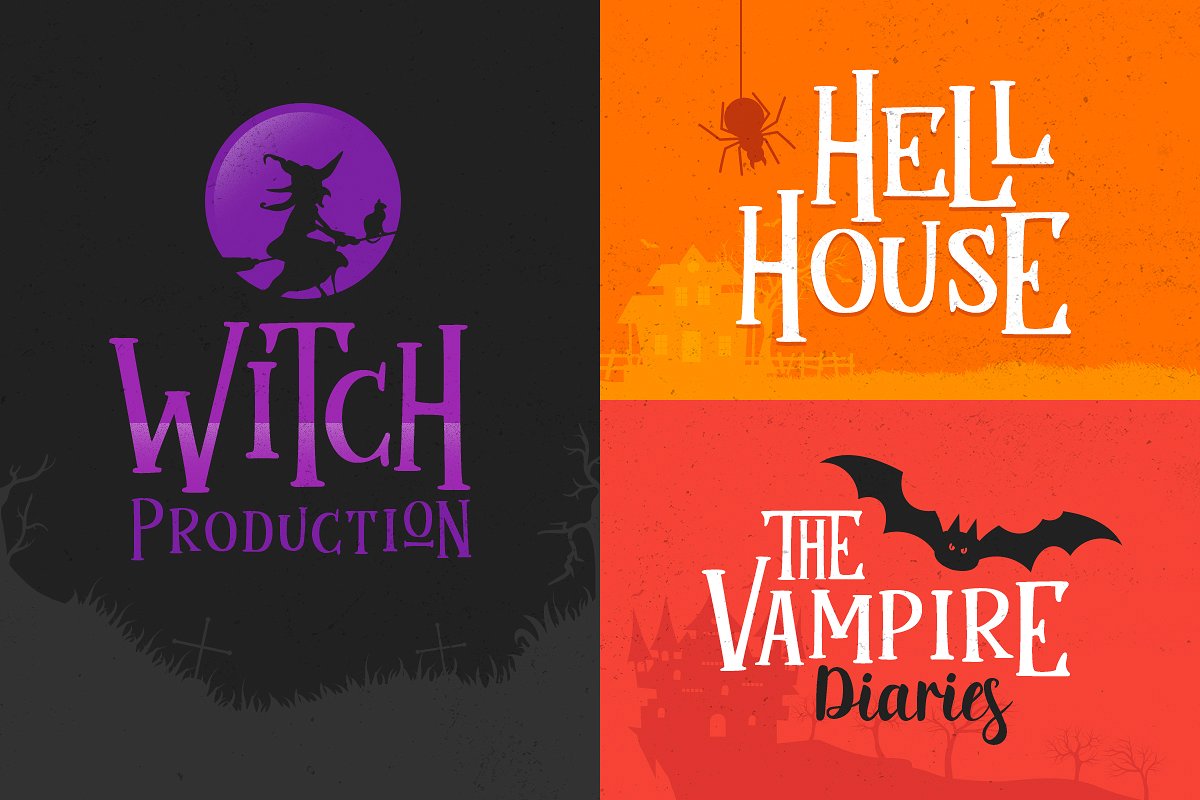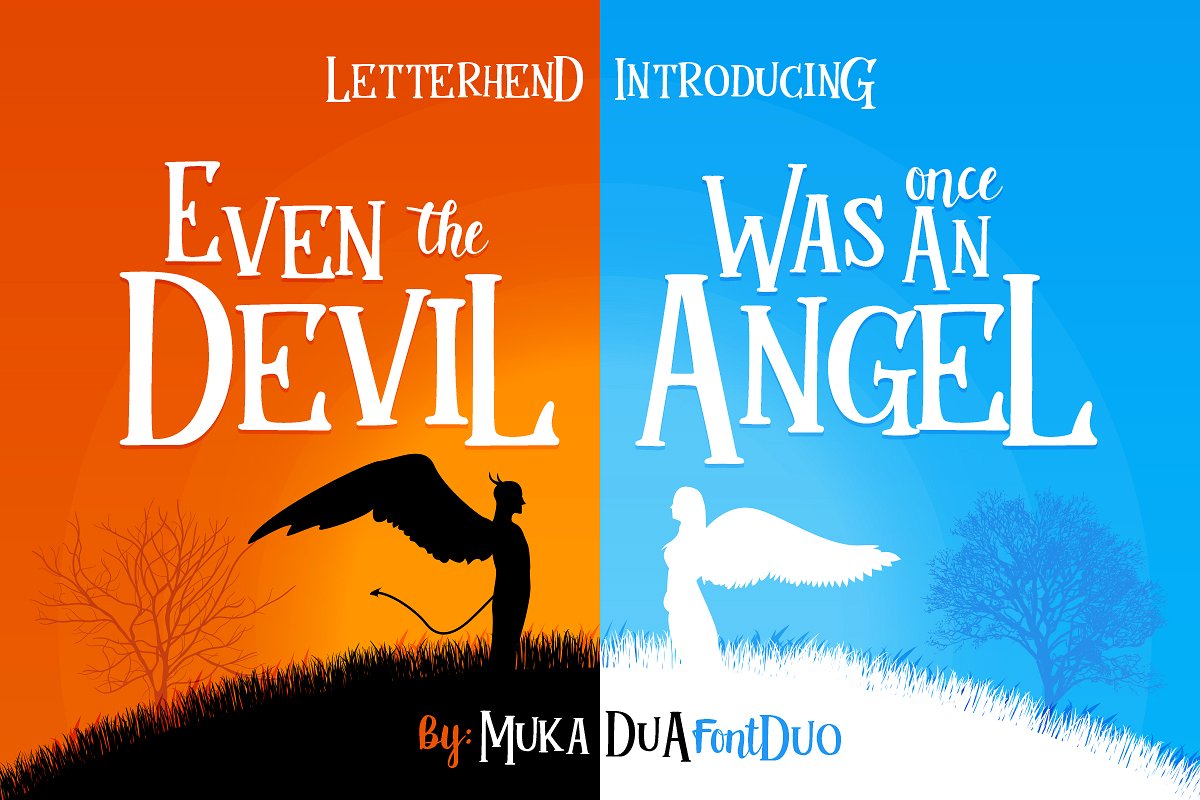
Mukadua
Mukadua Font Duo
This typeface consist of two type of fonts, serif and script. Mukadua means two-face which is can be used in happy and fun concept, but still looks great in dark / horror / scary concept! The main font is a serif font type with unique bouncing baseline, includes upper & lowercase characters, punctuation, numerals, and multilingual support. It also has open type features like stylistic alternates and ligatures!